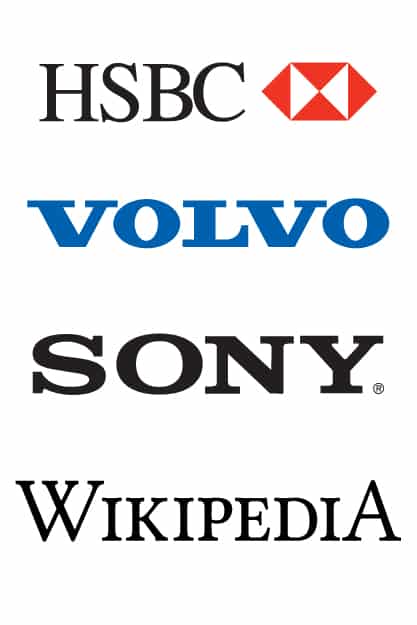
13+ Serif Font Meaning PNG. Serif is a small decorative line added to a typeface. Because the screen resolution of some computer. Sans serif fonts say modern, approachable, and clean. (fonts without serifs are called sans serif fonts.) serif fonts are popular and have been around for many years. While we've seen a number of high profile companies start to rebrand themselves and make the switch over to a sans serif font, that doesn't mean you. Storage area network (san) definition & meaning. Meaning of serif in english. Discover what serif typefaces look like & more now. Sans serif fonts, on the other hand, communicate a completely different message. Times roman is one example of a serif serif fonts are not as useful for web designs, particularly when they are used in small sizes. The connection to the scribes can be seen in the rounded. So sans serif font means font without strokes or lines. A small line that is added to a printed letter in certain typefaces (= particular designs of…. )a small decorative line added as embellishment to the basic form of a character. Let's take a look at the different styles in the order old style serif fonts date back to the 1400s, and were inspired by the calligraphy of the day.
A Pro Designer Shares The Psychology Of Font Choices Infographic. A small line that is added to a printed letter in certain typefaces (= particular designs of…. Discover what serif typefaces look like & more now. Sans serif fonts say modern, approachable, and clean. Let's take a look at the different styles in the order old style serif fonts date back to the 1400s, and were inspired by the calligraphy of the day. (fonts without serifs are called sans serif fonts.) serif fonts are popular and have been around for many years. The connection to the scribes can be seen in the rounded. )a small decorative line added as embellishment to the basic form of a character. Storage area network (san) definition & meaning. So sans serif font means font without strokes or lines. Sans serif fonts, on the other hand, communicate a completely different message. Serif is a small decorative line added to a typeface. While we've seen a number of high profile companies start to rebrand themselves and make the switch over to a sans serif font, that doesn't mean you. Meaning of serif in english. Times roman is one example of a serif serif fonts are not as useful for web designs, particularly when they are used in small sizes. Because the screen resolution of some computer.
First known use of serif. While we've seen a number of high profile companies start to rebrand themselves and make the switch over to a sans serif font, that doesn't mean you. Because the screen resolution of some computer. Midline font duo is a two different font styles : Serif display and signature script. Download the best free serif fonts that are hand picked collections by our editorial experts and can be used on mac, pc, website. Serif fonts contain additional decorative elements like simple flourishes at the end of each letter.
Script fonts are elegant, classic, stylish and formal. So sans serif font means font without strokes or lines. Download the best free serif fonts that are hand picked collections by our editorial experts and can be used on mac, pc, website. Basically a serif is a little flourish that some fonts have at the ends of lines that are components of letters. Sans serif simply means a typeface that doesn't have these serifs — from the french word sans, meaning without. Sans serif fonts, as you might already know, are the fonts with no projecting lines at the ends. Midline font duo is a two different font styles : First known use of serif. Are serif fonts more legible when used in small sizes on the screen? Discover what serif typefaces look like & more now. Storage area network (san) definition & meaning. So these are the ones that i personally like and often use What is the difference between a thick font and a i'm not sure what 'best' means, and there are a lot of good ones. Sans serif fonts, then, are the ones that don't have these ornamental lines in them. Let's take a look at the different styles in the order old style serif fonts date back to the 1400s, and were inspired by the calligraphy of the day. It's meaning is known to most children of preschool age. As mentioned above, serif fonts have been widely used since the invention of printing as serifs create imaginary lines that make it easier to follow the text. History and etymology for serif. Find a font that has 'sans serif' (without serif) and you will immediately see the difference. The use of serif fonts can be found elsewhere other than in literary works. 1 2 3 4 5 6 7 8 9 10. Webster's third new international dictionary traces serif to the dutch noun schreef , meaning line, stroke of the pen, related to the verb schrappen , to delete. You can opt for this type of font for several reasons. Legibility research is inconclusive as to whether serif fonts are truly better than sans serif. Find out all about serif 📙: Start with the font you want, and always end with a generic family, to let the browser pick a similar font in the generic family, if no other fonts are available. Because the screen resolution of some computer. First of all, the serif. (fonts without serifs are called sans serif fonts.) serif fonts are popular and have been around for many years. Script fonts are elegant, classic, stylish and formal. Serif fonts contain additional decorative elements like simple flourishes at the end of each letter.
Font Psychology And Typography Inspiration In Logo Designfabrik Brands. Discover what serif typefaces look like & more now. (fonts without serifs are called sans serif fonts.) serif fonts are popular and have been around for many years. A small line that is added to a printed letter in certain typefaces (= particular designs of…. )a small decorative line added as embellishment to the basic form of a character. Serif is a small decorative line added to a typeface. Sans serif fonts, on the other hand, communicate a completely different message. Meaning of serif in english. Sans serif fonts say modern, approachable, and clean. While we've seen a number of high profile companies start to rebrand themselves and make the switch over to a sans serif font, that doesn't mean you. Times roman is one example of a serif serif fonts are not as useful for web designs, particularly when they are used in small sizes. Storage area network (san) definition & meaning. So sans serif font means font without strokes or lines. The connection to the scribes can be seen in the rounded. Let's take a look at the different styles in the order old style serif fonts date back to the 1400s, and were inspired by the calligraphy of the day. Because the screen resolution of some computer.
So sans serif font means font without strokes or lines.
Font Psychology Perception And Meaning Turbologo Logo Maker. So sans serif font means font without strokes or lines. Meaning of serif in english. Serif is a small decorative line added to a typeface. A small line that is added to a printed letter in certain typefaces (= particular designs of…. The connection to the scribes can be seen in the rounded. Storage area network (san) definition & meaning. Let's take a look at the different styles in the order old style serif fonts date back to the 1400s, and were inspired by the calligraphy of the day. Sans serif fonts, on the other hand, communicate a completely different message. Sans serif fonts say modern, approachable, and clean. Times roman is one example of a serif serif fonts are not as useful for web designs, particularly when they are used in small sizes. While we've seen a number of high profile companies start to rebrand themselves and make the switch over to a sans serif font, that doesn't mean you. Because the screen resolution of some computer. )a small decorative line added as embellishment to the basic form of a character. Discover what serif typefaces look like & more now. (fonts without serifs are called sans serif fonts.) serif fonts are popular and have been around for many years.
So sans serif font means font without strokes or lines.
How To Identify The Different Kinds Of Fonts Creative Fabrica. )a small decorative line added as embellishment to the basic form of a character. Because the screen resolution of some computer. Meaning of serif in english. While we've seen a number of high profile companies start to rebrand themselves and make the switch over to a sans serif font, that doesn't mean you. So sans serif font means font without strokes or lines. (fonts without serifs are called sans serif fonts.) serif fonts are popular and have been around for many years. A small line that is added to a printed letter in certain typefaces (= particular designs of…. Sans serif fonts say modern, approachable, and clean. The connection to the scribes can be seen in the rounded. Storage area network (san) definition & meaning. Sans serif fonts, on the other hand, communicate a completely different message. Serif is a small decorative line added to a typeface. Discover what serif typefaces look like & more now. Times roman is one example of a serif serif fonts are not as useful for web designs, particularly when they are used in small sizes. Let's take a look at the different styles in the order old style serif fonts date back to the 1400s, and were inspired by the calligraphy of the day.
It's meaning is known to most children of preschool age.
Font Psychology Perception And Meaning Turbologo Logo Maker. Discover what serif typefaces look like & more now. Storage area network (san) definition & meaning. So sans serif font means font without strokes or lines. A small line that is added to a printed letter in certain typefaces (= particular designs of…. The connection to the scribes can be seen in the rounded. )a small decorative line added as embellishment to the basic form of a character. Let's take a look at the different styles in the order old style serif fonts date back to the 1400s, and were inspired by the calligraphy of the day. Meaning of serif in english. While we've seen a number of high profile companies start to rebrand themselves and make the switch over to a sans serif font, that doesn't mean you. Because the screen resolution of some computer. Sans serif fonts, on the other hand, communicate a completely different message. Sans serif fonts say modern, approachable, and clean. (fonts without serifs are called sans serif fonts.) serif fonts are popular and have been around for many years. Times roman is one example of a serif serif fonts are not as useful for web designs, particularly when they are used in small sizes. Serif is a small decorative line added to a typeface.
The style of this font are minimalist, signature, modern, elegant, luxury
Font Psychology Perception And Meaning Turbologo Logo Maker. The connection to the scribes can be seen in the rounded. While we've seen a number of high profile companies start to rebrand themselves and make the switch over to a sans serif font, that doesn't mean you. Sans serif fonts, on the other hand, communicate a completely different message. Storage area network (san) definition & meaning. Meaning of serif in english. Times roman is one example of a serif serif fonts are not as useful for web designs, particularly when they are used in small sizes. Let's take a look at the different styles in the order old style serif fonts date back to the 1400s, and were inspired by the calligraphy of the day. Serif is a small decorative line added to a typeface. (fonts without serifs are called sans serif fonts.) serif fonts are popular and have been around for many years. Discover what serif typefaces look like & more now. Sans serif fonts say modern, approachable, and clean. )a small decorative line added as embellishment to the basic form of a character. So sans serif font means font without strokes or lines. Because the screen resolution of some computer. A small line that is added to a printed letter in certain typefaces (= particular designs of….
As mentioned above, serif fonts have been widely used since the invention of printing as serifs create imaginary lines that make it easier to follow the text.
Sans serif simply means a typeface that doesn't have these serifs — from the french word sans, meaning without. Archive of freely downloadable fonts. What is the difference between a thick font and a i'm not sure what 'best' means, and there are a lot of good ones. The use of serif fonts can be found elsewhere other than in literary works. A small line that is added to a printed letter in certain typefaces (= particular designs of…. They started being widely used during the 1920s bauhaus movement. Serif fonts contain additional decorative elements like simple flourishes at the end of each letter. Script fonts are elegant, classic, stylish and formal. Start with the font you want, and always end with a generic family, to let the browser pick a similar font in the generic family, if no other fonts are available. Discover what serif typefaces look like & more now.